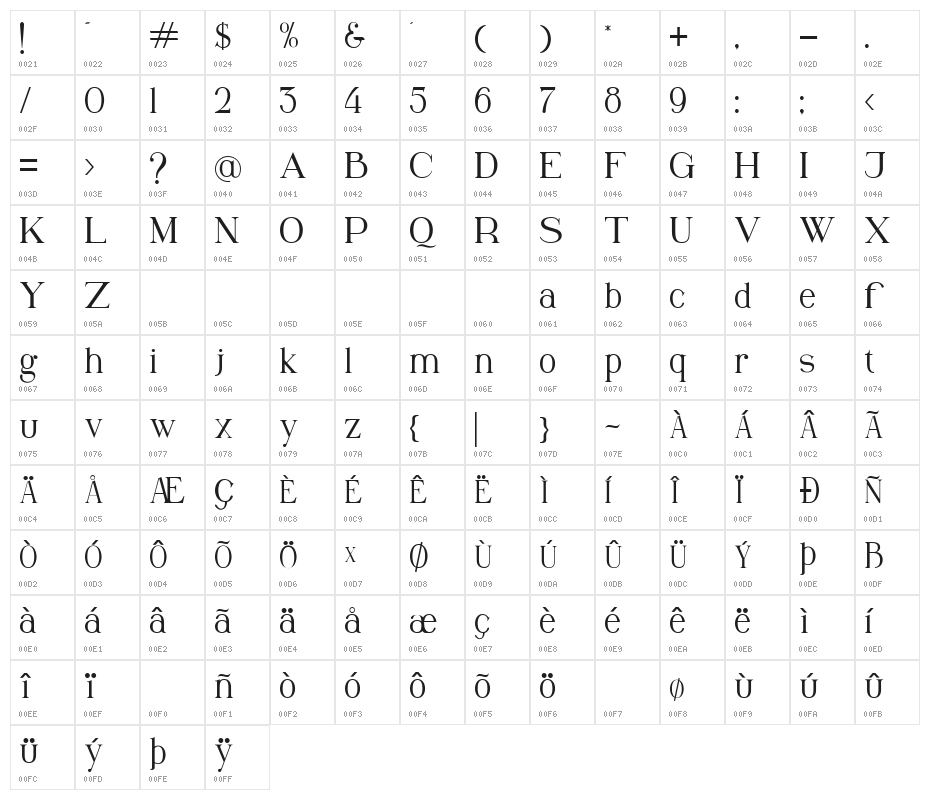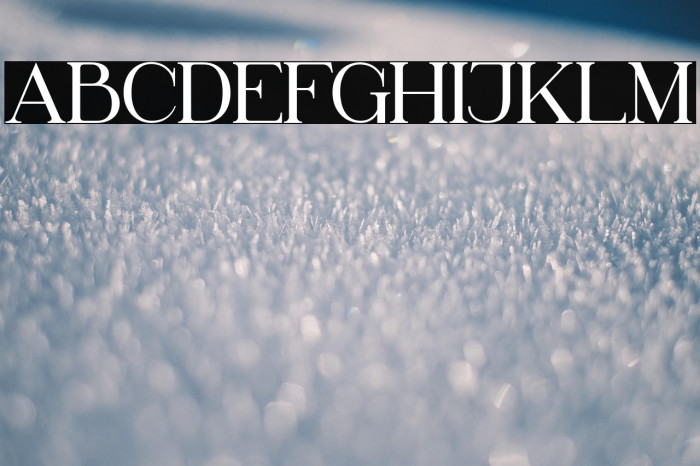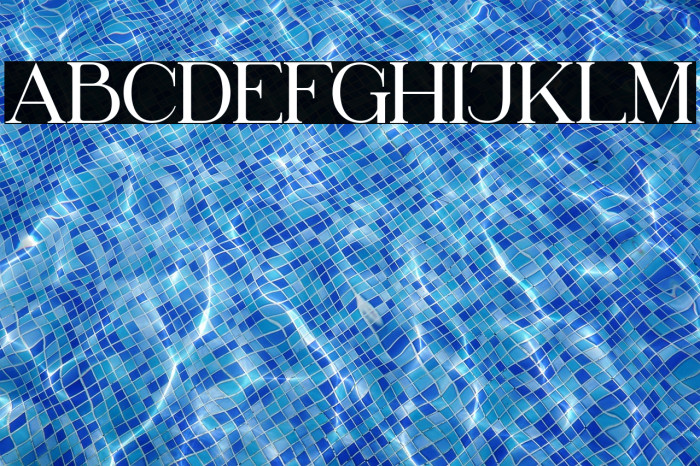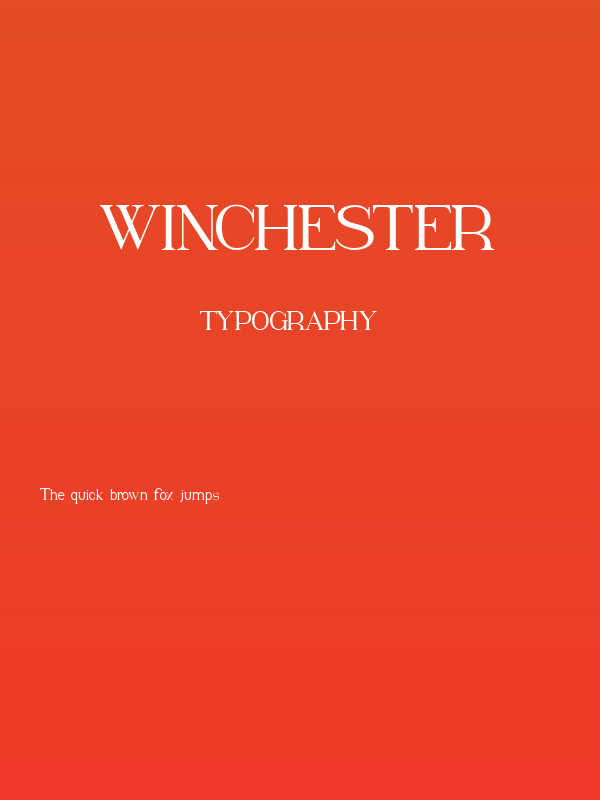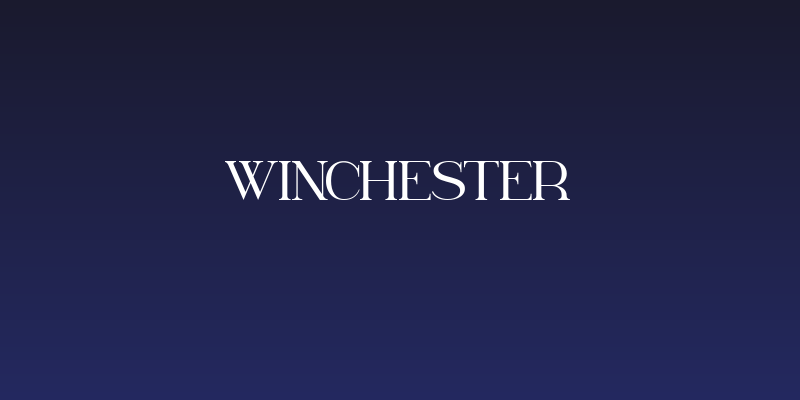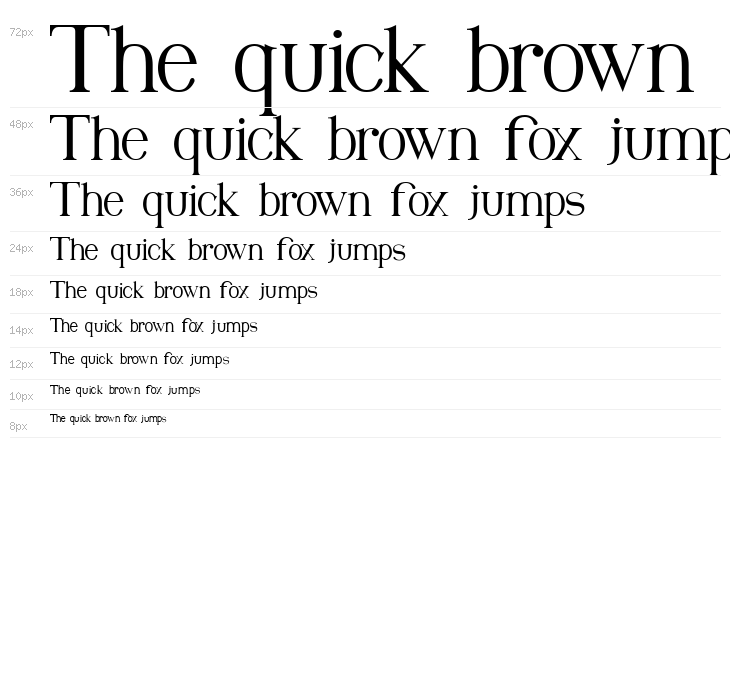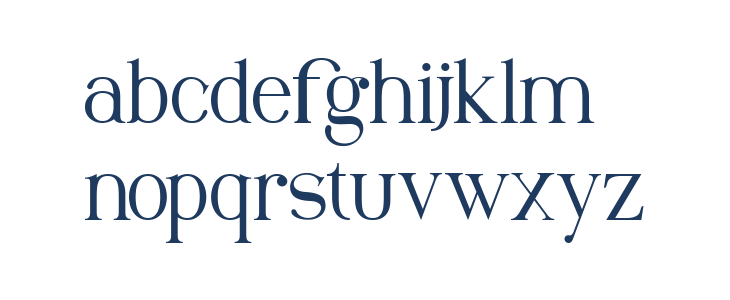
Winchester Font
Winchester Description
This font features a classic serif style with a modern twist, characterized by elegant and refined strokes. The uppercase letters exhibit a traditional serif form with slight variations in stroke width, giving them a sophisticated appearance. The lowercase letters maintain a consistent style, with smooth curves and a balanced structure. The numerals are clear and legible, designed to complement the overall aesthetic. Special characters are thoughtfully crafted, maintaining the font's elegance and readability. This font is suitable for projects that require a touch of class and sophistication.